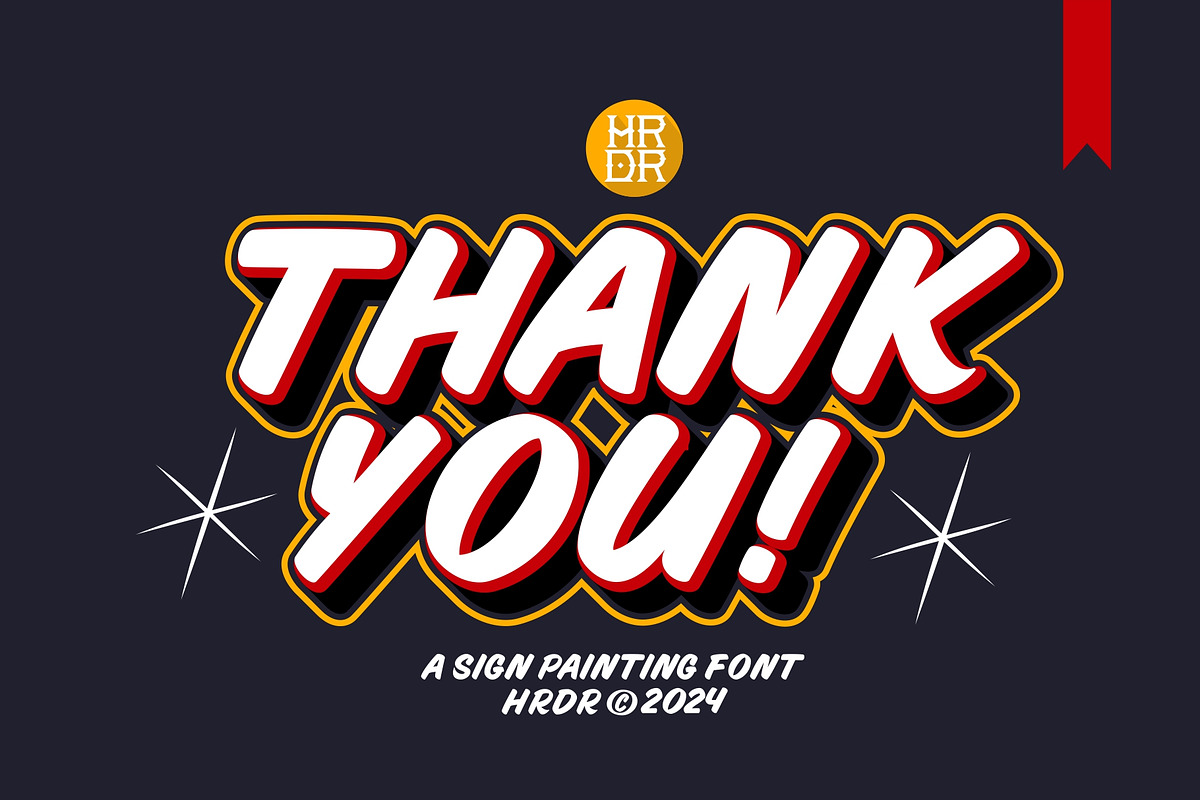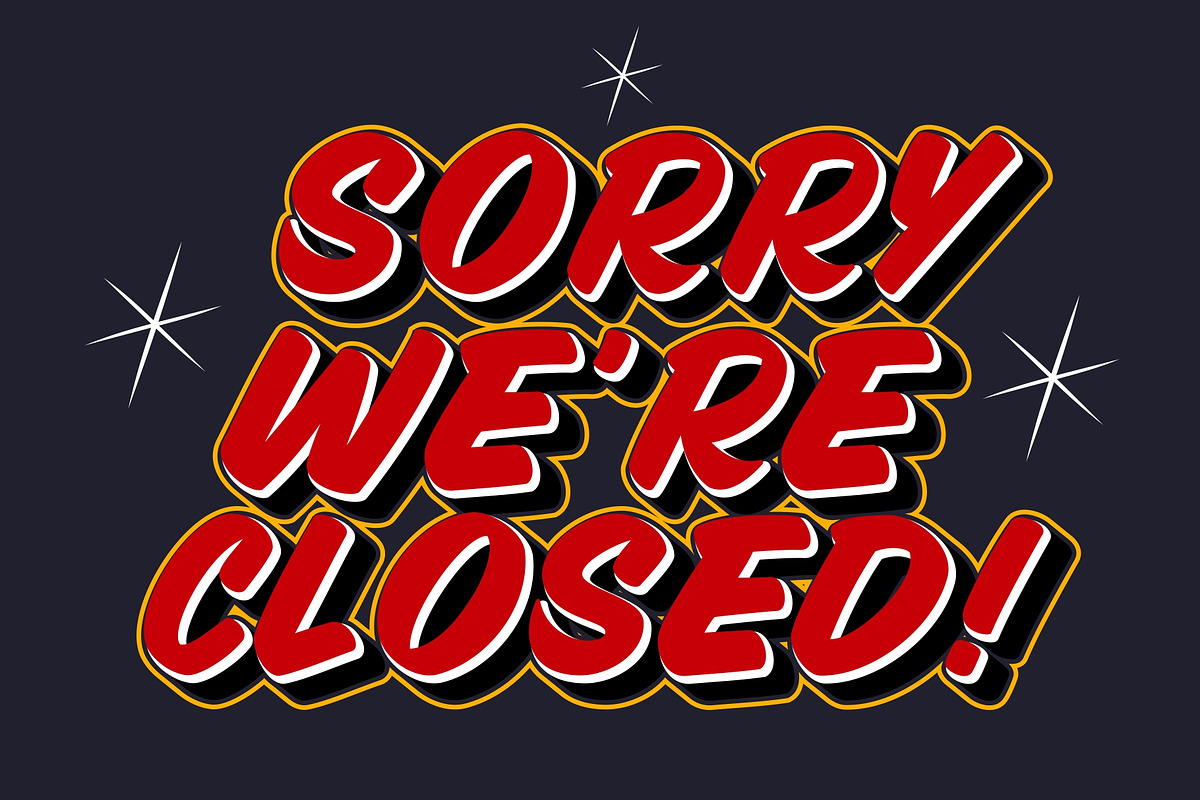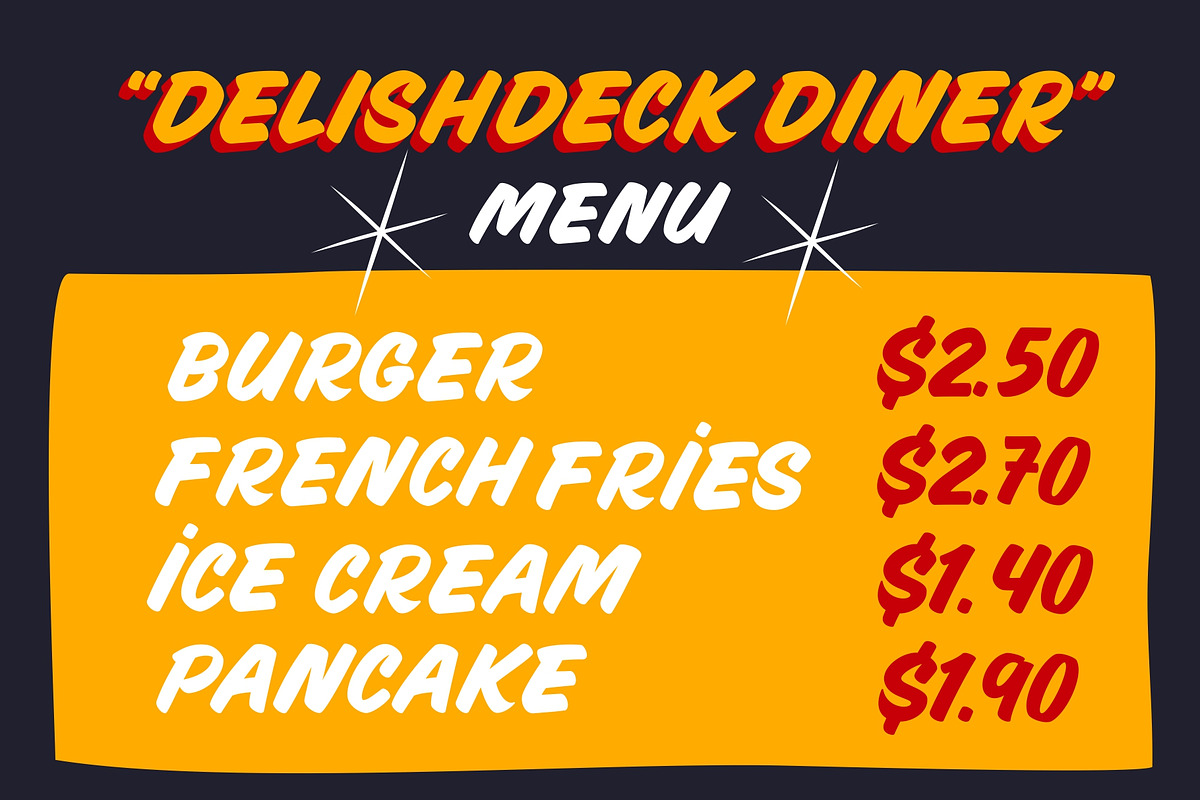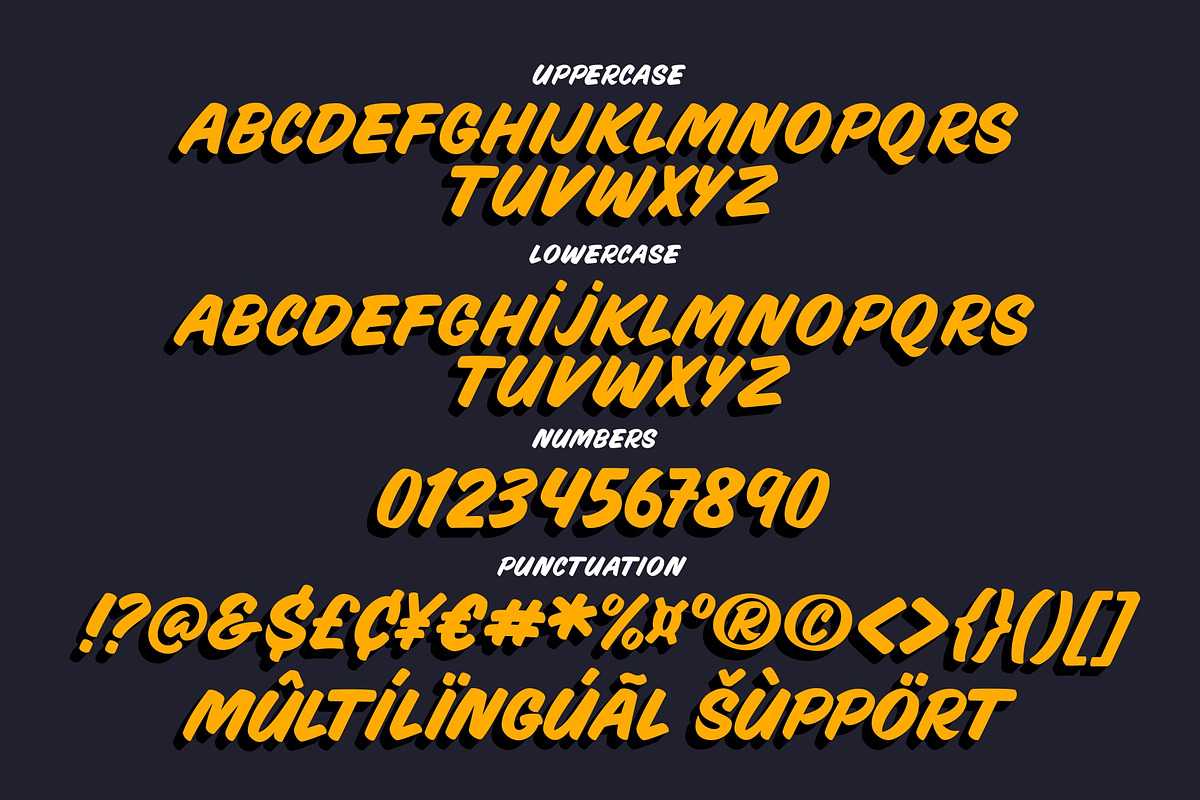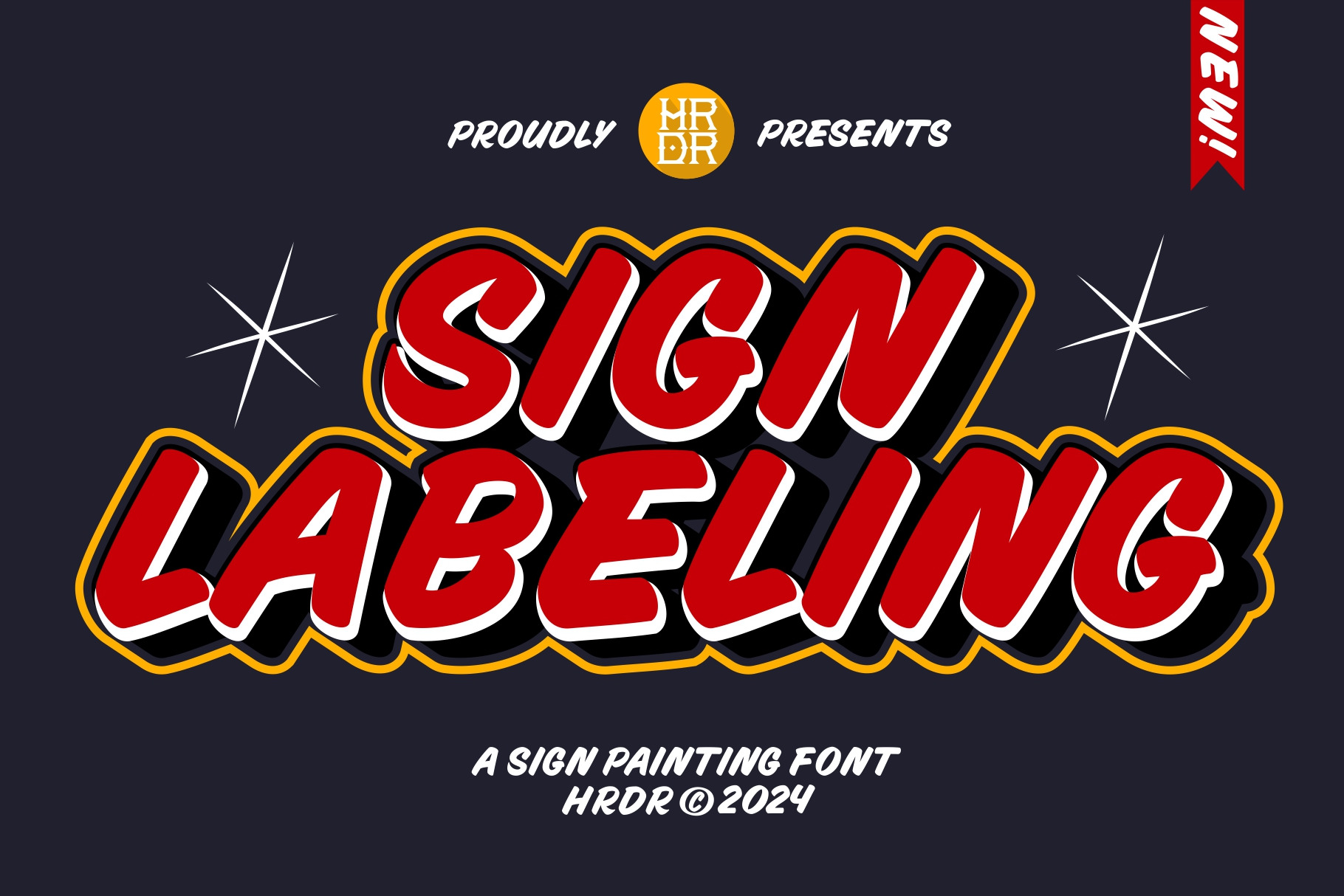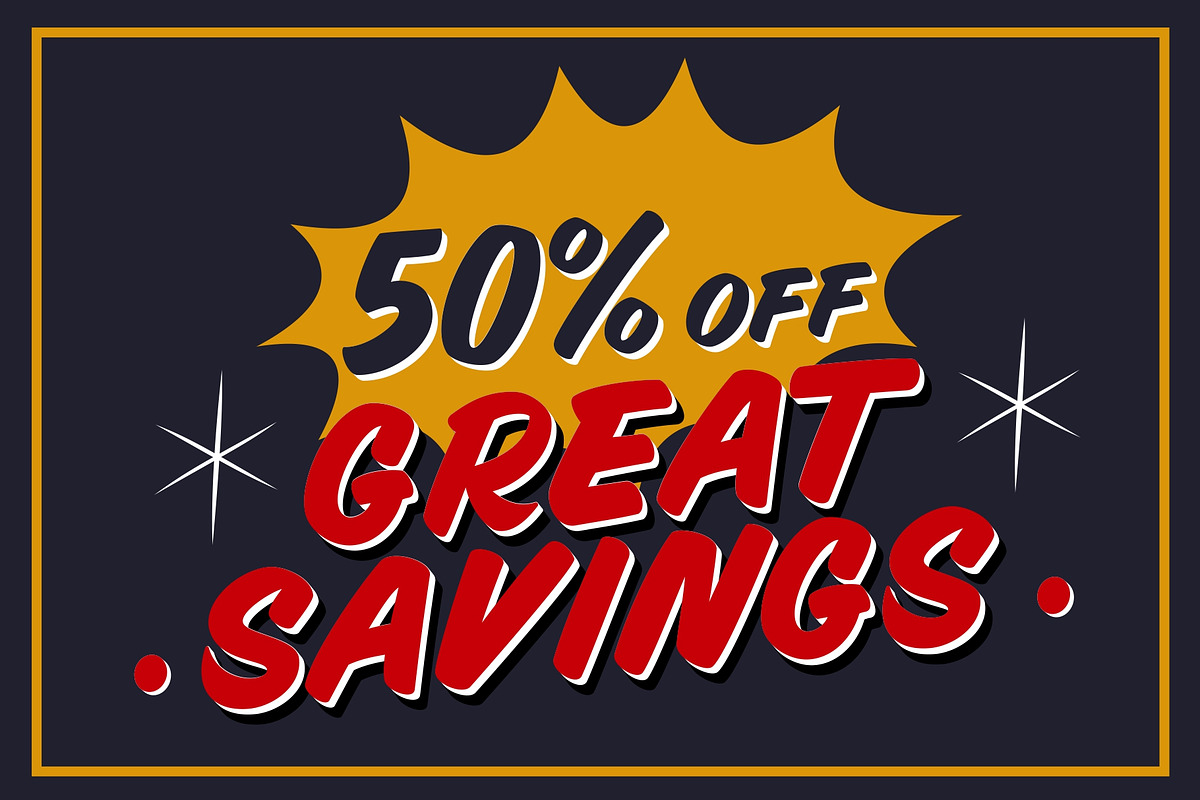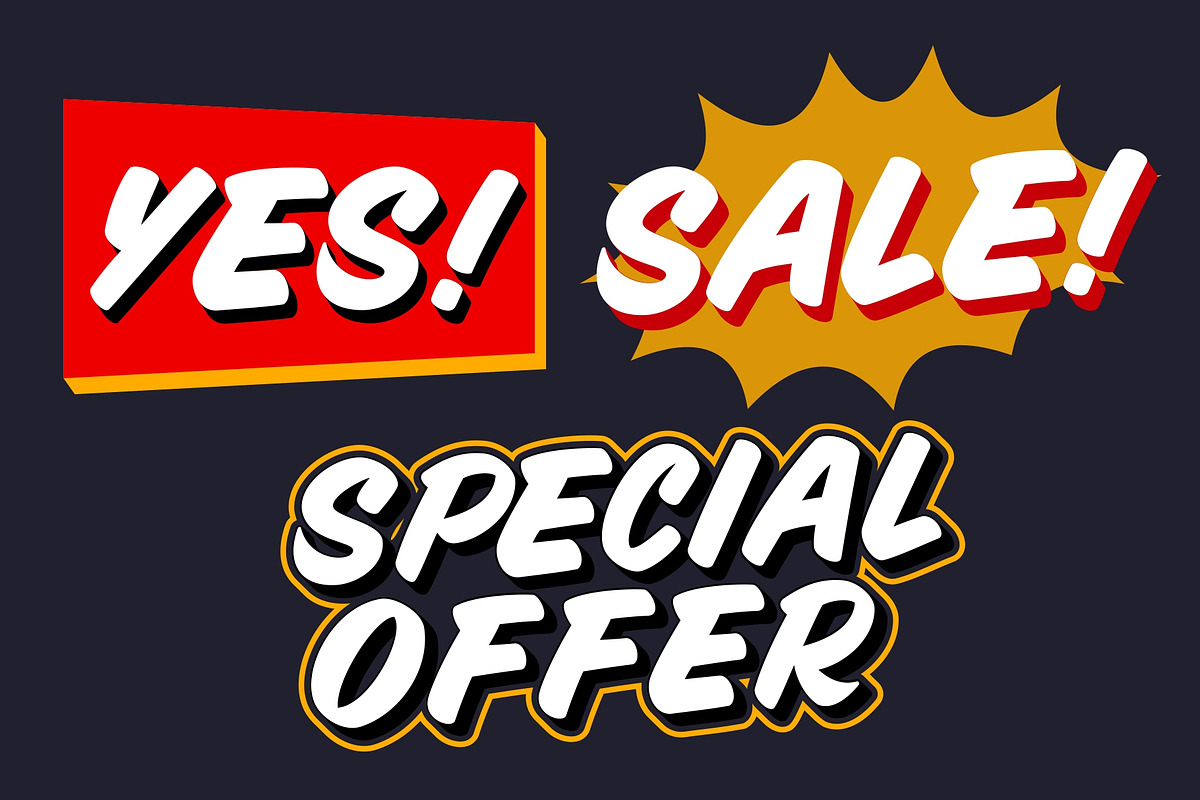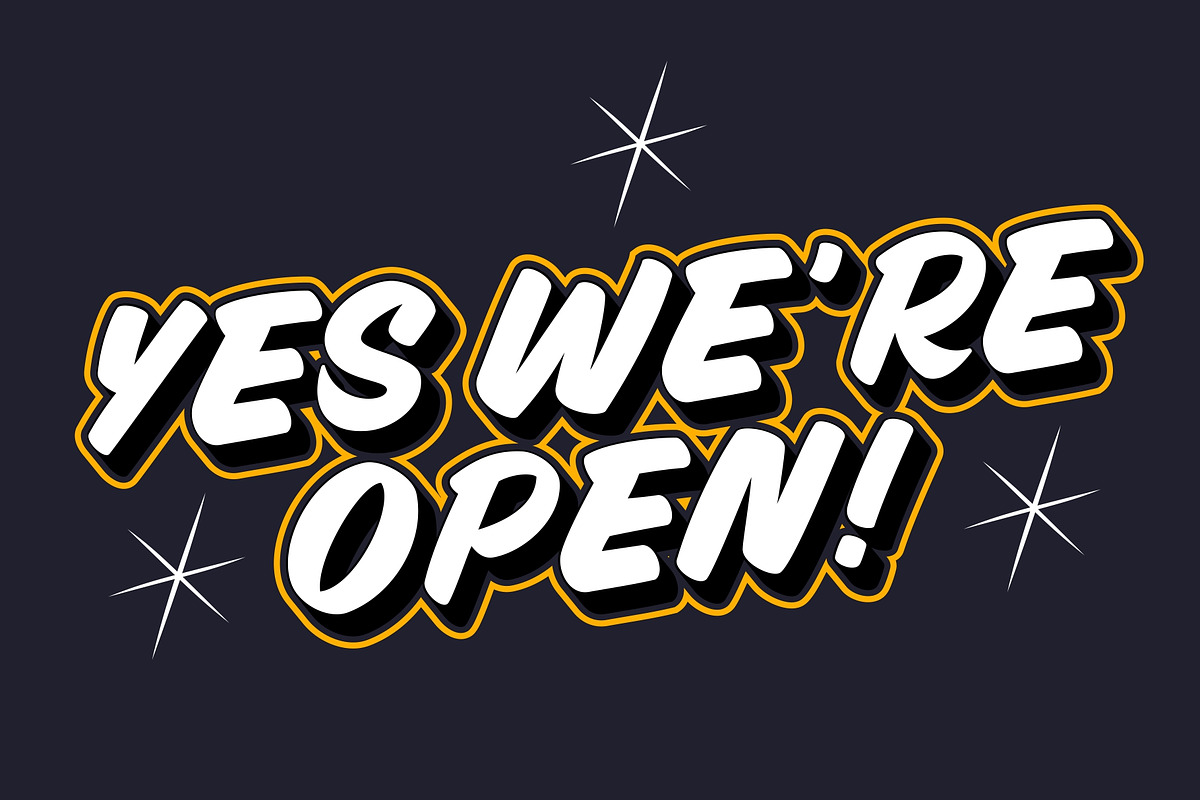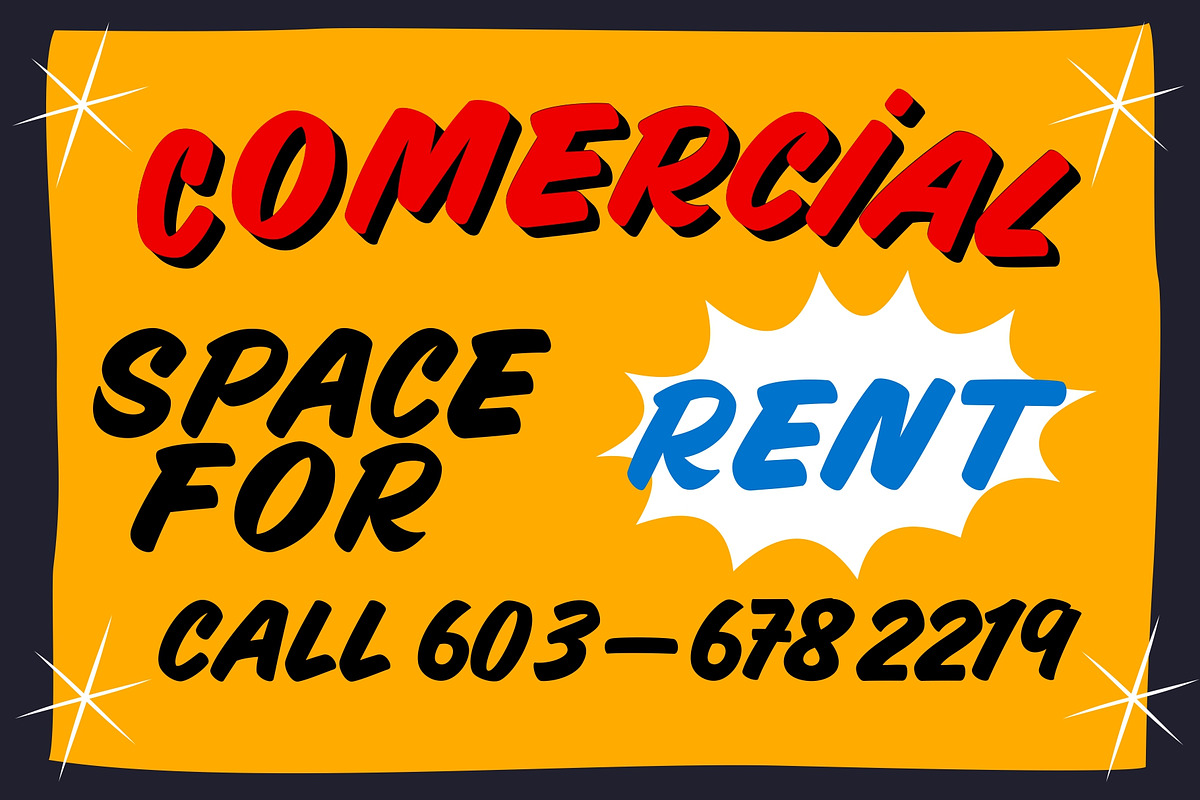
Sign Labeling - A sign painting Font
Sign Labeling is a sign painting all caps font, perfect for of handwritten chalkboard signs in restaurants, bars, shops or on the market and Posters, product designs, label, Posters or anything.
Sign Labeling font comes with a full set of uppercase and lowercase letters, ligatures, multilingual symbols, numerals, and punctuation.